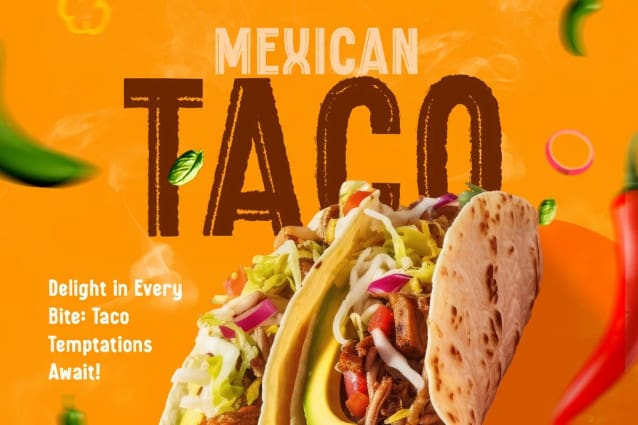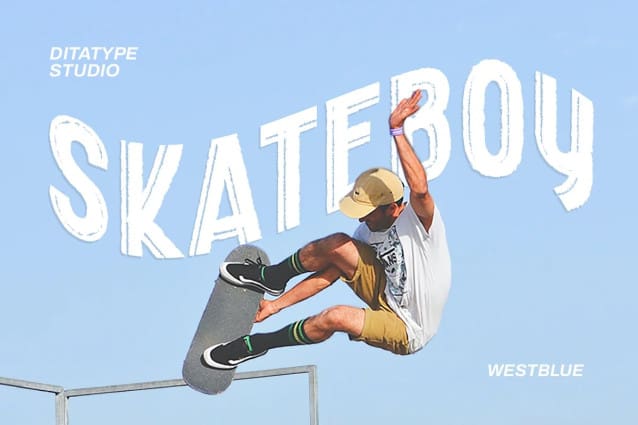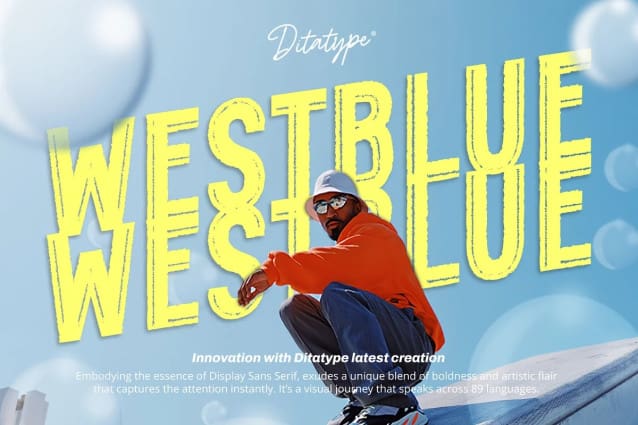
Westblue Brush Font
Westblue Brush Font is a captivating sans-serif display font. Crafted in bold style and intricate brushwork, this font is a versatile choice for designers seeking a perfect combination of impact and creativity. The characters in Westblue command attention with their substantial size and clean, sans-serif lines. What sets this font apart is the meticulously added brushed details, which bring an organic and handcrafted touch to each letter. These details create a sense of dynamism, making Westblue ideal for projects that demand both modernity and a hint of artistic flair.